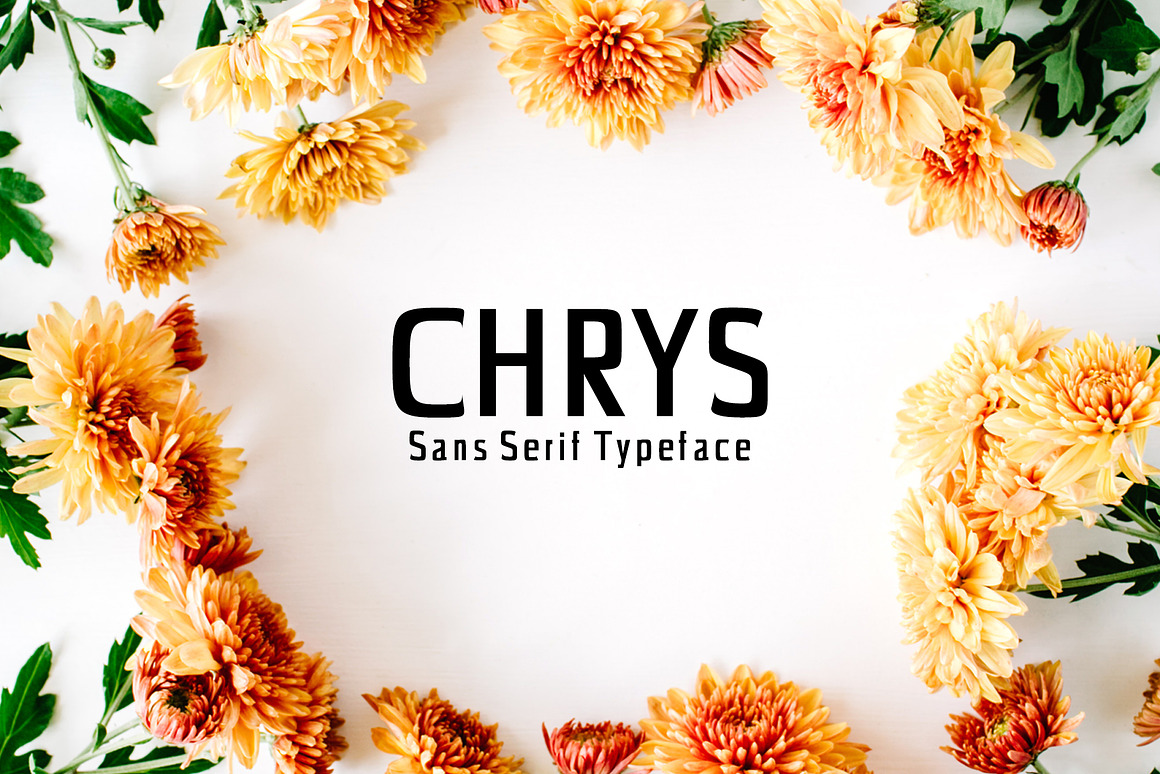
Chrys Sans Serif Font Family Pack
This contemporary sans serif typeface pack is perfect for modern branding, digital marketing, website headers, mobile app interfaces, corporate presentations, packaging design, advertising campaigns, and sleek editorial layouts. Chrys Sans Serif Font Family Pack delivers outstanding performance in both digital and print environments where clarity and visual impact are paramount.
What makes Chrys Sans Serif Font Family Pack so exciting is its sophisticated blend of geometric precision and organic flow. The font features distinctively crafted letterforms with subtle character variations that add personality without sacrificing readability. Each glyph has been meticulously refined to ensure optimal performance across various media and sizes. The pack's innovative design approach creates a unique visual rhythm that captures attention while maintaining professional credibility, making it an exceptional choice for brands seeking to stand out in competitive markets.
The Chrys Sans Serif Font Family Pack includes an extensive collection of weights and styles: Ultra Light, Light, Regular, Medium, Semi-Bold, Bold, Extra Bold, and Black, complete with corresponding italic versions. This comprehensive pack also features extended character sets, multiple language support, and special glyphs for enhanced design flexibility. Each weight preserves the family's distinctive character while providing varied emphasis levels for complex typographic compositions.
Whether you're crafting cutting-edge brand identities, developing responsive web experiences, or designing premium product packaging, Chrys Sans Serif Font Family Pack Free Download offers the versatility and style modern projects demand. Its clean architecture makes it ideal for technology brands, lifestyle companies, architectural firms, and creative studios. The font pack's excellent scalability ensures consistent performance from large billboard displays to small mobile screens, while its refined aesthetics elevate any design application.
This comprehensive sans serif pack represents the pinnacle of contemporary typography for forward-thinking designers.